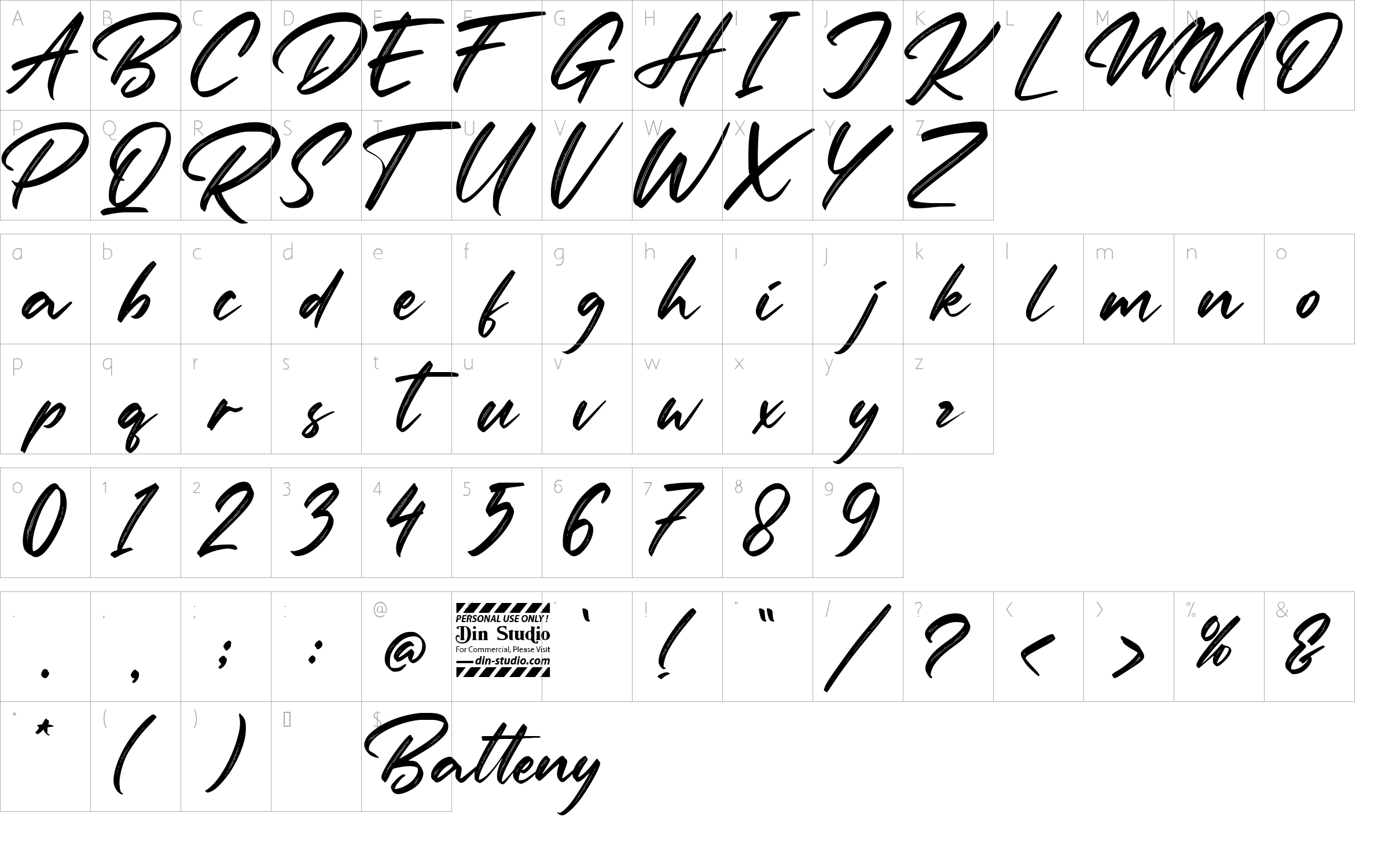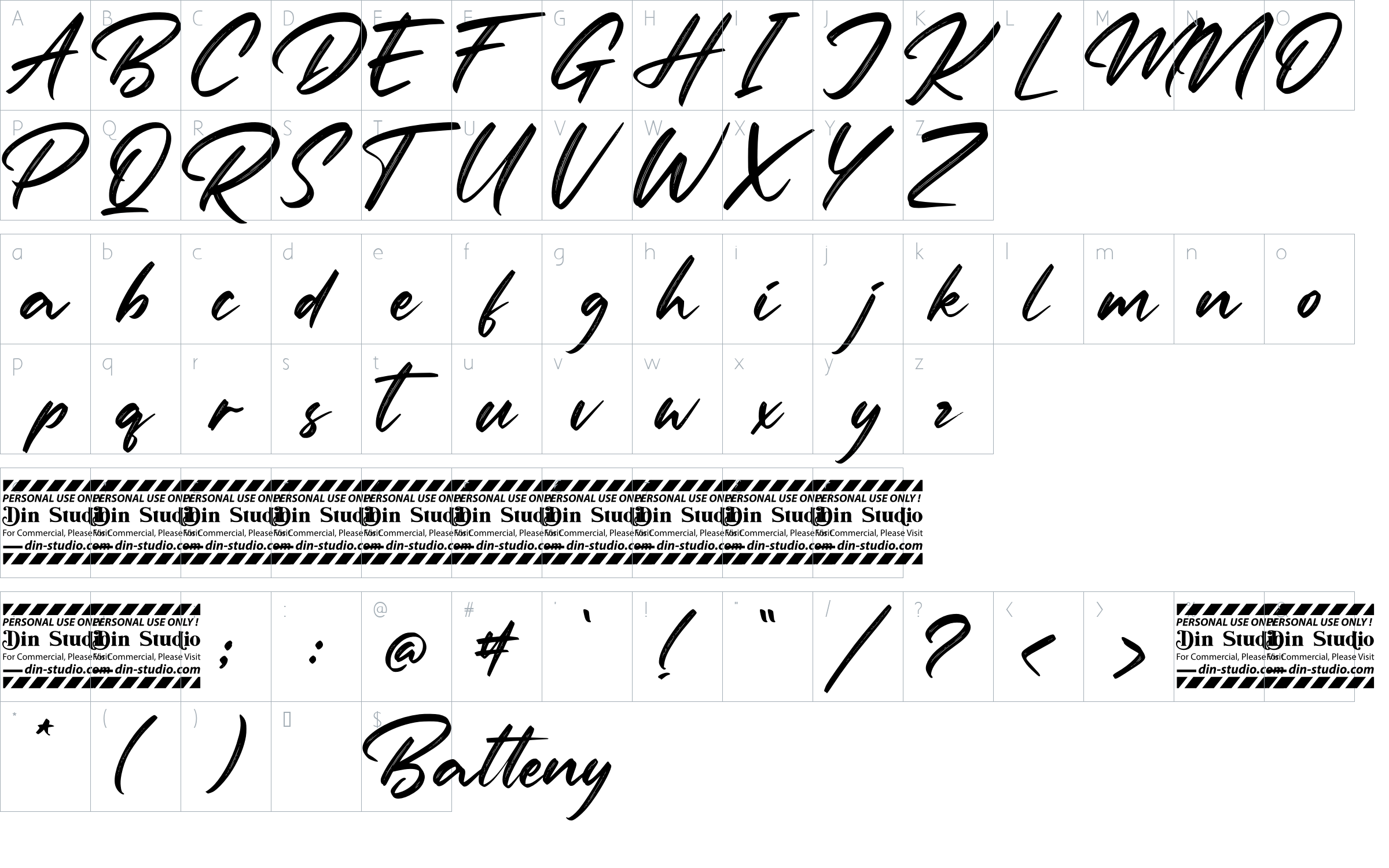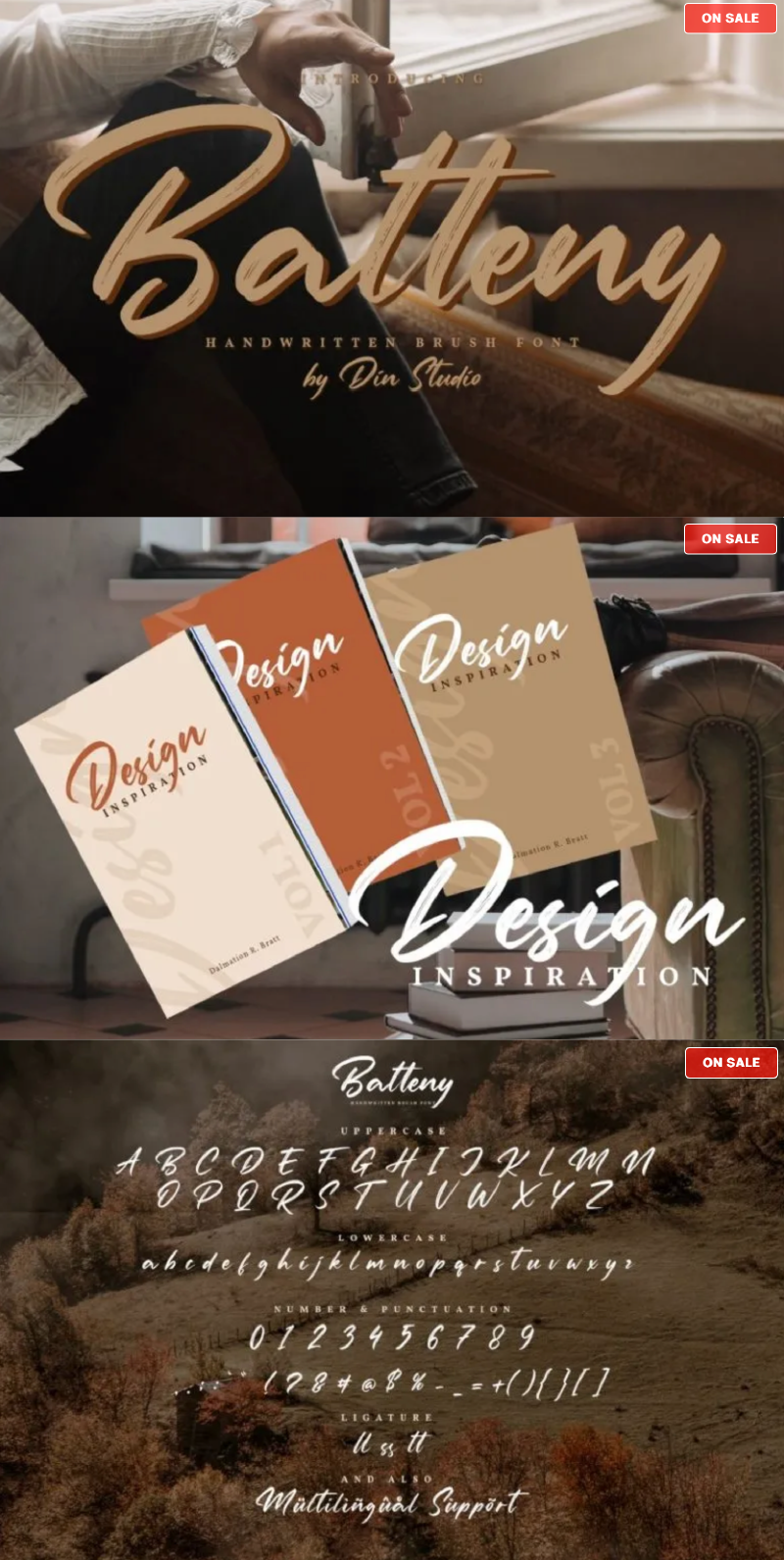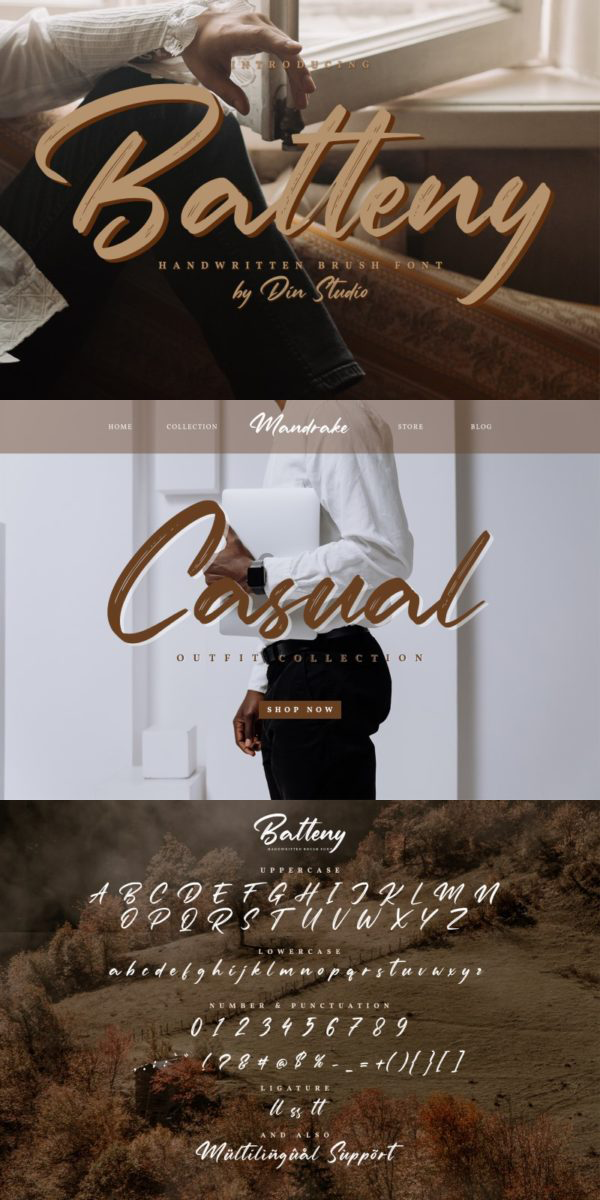
Batteny Font
About Batteny
Batteny is a classy script font mixed with brush textured handwriting that will make your design projects more powerful. It is made for any professional project brandings which is best for logos, brandings, and quotes. Every letter has a unique and beautiful touch. See the previews above to get some inspiration on how you can use them. Happy designing!
- Beautiful Ligatures